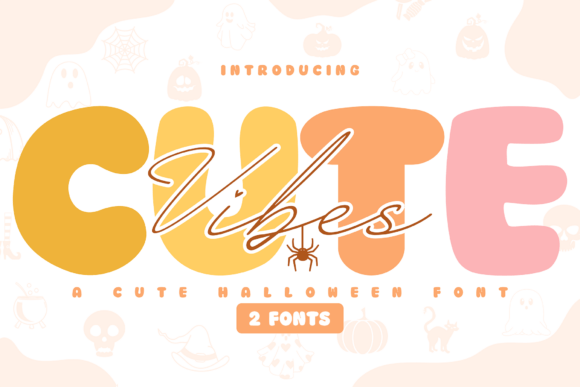
๐โจ Cute Vibes โ A Charming Halloween Font Duo! โจ๐
Are you ready to add a spellbinding mix of sweetness and spookiness to your designs this Halloween season? Look no further than Cute Vibes, a playful and heartwarming font duo that’s perfect for Halloween lovers! In this article, we’ll dive into the details of this charming font duo and explore how it can bring a touch of magic to your creations.
What’s Inside the Cute Vibes Font Duo?
The Cute Vibes font duo consists of two unique fonts that complement each other perfectly: Cute Halloween Font and Cute Vibes Script.
The Cute Halloween Font is a bold and bubbly display font that’s sure to grab attention. This font features:
- Uppercase letters for a bold and playful look
- Numbers and punctuation to complete your designs
- Adorable Halloween doodles, including:
- Ghosts to add a spooky touch
- Pumpkins for a festive feel
- Bats and spiders to bring the Halloween spirit
With the Cute Halloween Font, you can create eye-catching designs that are perfect for party invites, social media graphics, crafts, and spooky merch.
The Cute Vibes Script is a smooth and stylish handwritten script that adds a soft, whimsical flair to your seasonal projects. This font is perfect for adding a touch of elegance and sophistication to your designs, while still maintaining a playful and festive feel.
Why Choose Cute Vibes Font Duo?
So, why should you choose the Cute Vibes font duo for your Halloween designs? Here are just a few reasons:
- Perfect pairing: The Cute Vibes font duo offers a perfect pairing of bold and playful, with smooth and stylish, to create a unique and captivating visual identity for your designs.
- Versatile: The Cute Vibes font duo is versatile and can be used for a wide range of designs, including party invites, social media graphics, crafts, and spooky merch.
How to Use Cute Vibes Font Duo in Your Designs?
Using the Cute Vibes font duo in your designs is easy and fun! Here are a few ideas to get you started:
- Party Invites: Create spooky and fun party invites that will set the tone for your Halloween celebrations.
- Social Media Graphics: Add a touch of Halloween magic to your social media graphics, including Facebook posts, Instagram stories, and Twitter headers.
- Crafts: Use the Cute Vibes font duo to create spooky and fun crafts, such as Halloween cards, gift tags, and decorations.
- Spooky Merch: Design spooky and fun merchandise, such as t-shirts, mugs, and tote bags, that will make your friends and family love the Halloween spirit.